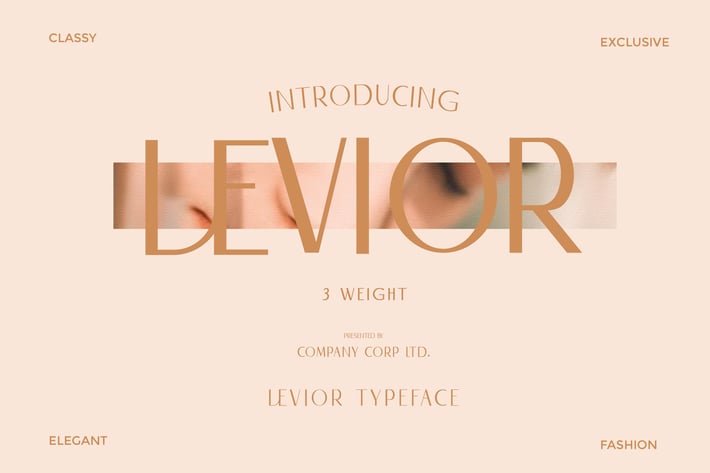
Levior en Rose - Classy Typeface
Levior is a classic modern font that is both stylish and unique with Narrow smooth curves and beautiful ligatures, tons of special alternative glyphs, ornament and multilingual support. It's a very versatile font that works great in large and small sizes. Levior is perfect for branding projects, Logo design, Clothing Branding, product packaging, magazine headers, or simply as a stylish text overlay to any background image.
+ 3 Weights font
+ Stylistic Alternates & Ligatures